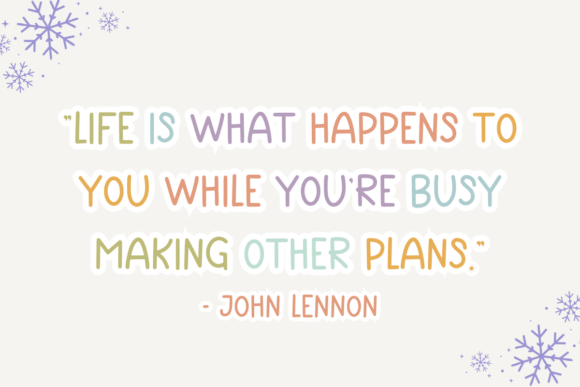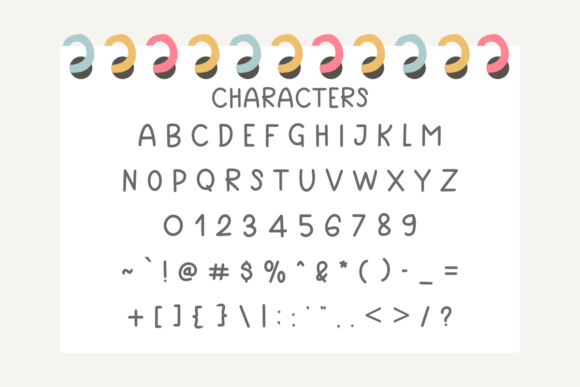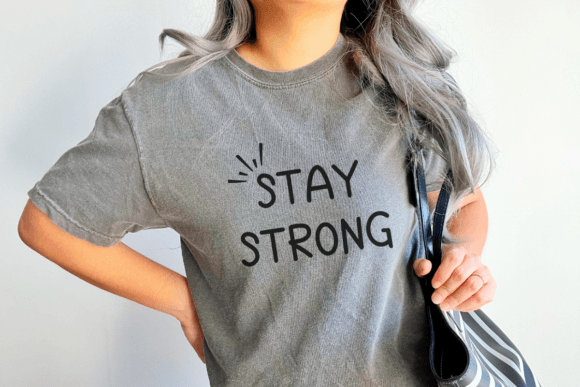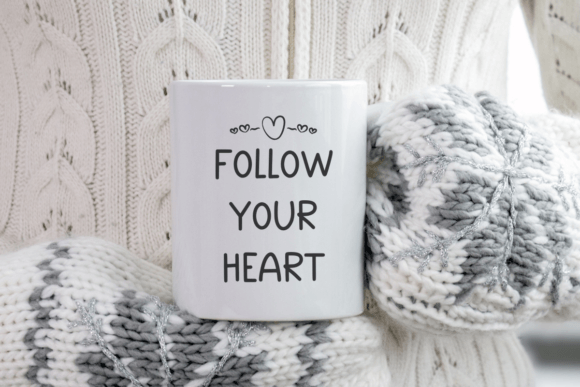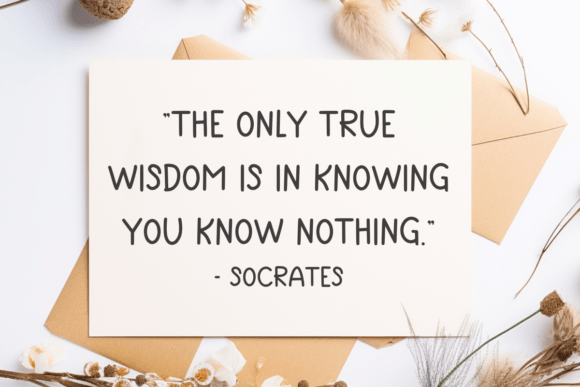
Discover the Charm of Art Snowman Font: A Fun and Versatile Handwritten Sans-Serif
I’ll never forget the moment I stumbled upon the Art Snowman Font while working on a festive holiday project for a client. I was on a tight deadline, and my design was still missing that special something. As I scrolled through my font library, I came across Art Snowman, and it instantly brought a smile to my face. Its playful, handwritten charm was exactly what my design needed to shine. In this article, I’ll share my experience with this delightful font, its features, and how to make the most of it in your designs.
An Honest Review of Art Snowman Font
• ✨ Cute and playful vibe: Art Snowman Font has a unique, whimsical feel that’s perfect for creating fun and engaging designs.
• ✅ Highly versatile: This font is suitable for a wide range of projects, from notes and planners to greeting cards and scrapbooks.
• 💡 Easy to read: Despite its playful nature, Art Snowman Font remains clear and legible, making it ideal for body text and headings.
While Art Snowman Font is an excellent choice for many projects, there are a few minor quirks to consider:
• ⚠️ Limited formal use: Due to its playful nature, Art Snowman Font might not be the best fit for formal or professional designs.
• 🤔 Glyph limitations: Some users may find that the font’s glyph set is not as extensive as they would like, which could limit its use in certain design contexts.
A Practical Guide to Using Art Snowman Font
The Backstory of Art Snowman Font
Art Snowman Font was designed with the intention of capturing the magic and wonder of winter. The creator aimed to craft a font that would evoke feelings of joy and playfulness, making it perfect for a wide range of creative projects. While the true inspiration behind the font remains a mystery, its delightful design and versatility have won the hearts of many designers and crafters.
Font Name Art Snowman Font
Author CraftedType Studio
What type of projects is Art Snowman Font best suited for? Art Snowman Font is perfect for notes, planners, journals, greeting cards, invitations, scrapbooks, calendars, and more.
Does Art Snowman Font support OpenType features? Yes, Art Snowman Font supports OpenType features, allowing you to take advantage of glyphs and stylistic alternates in your designs.